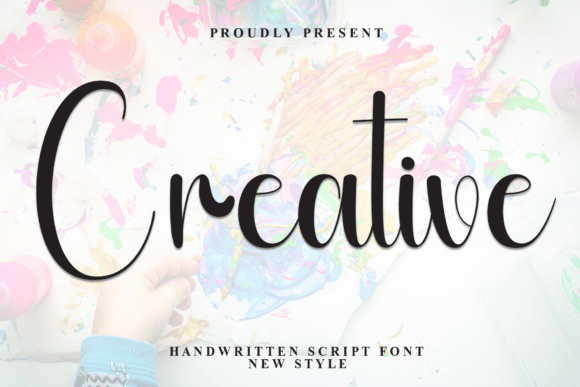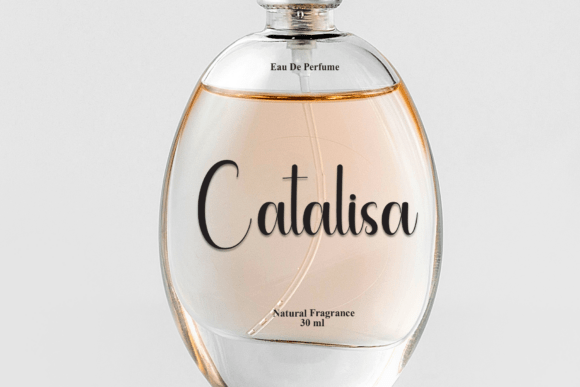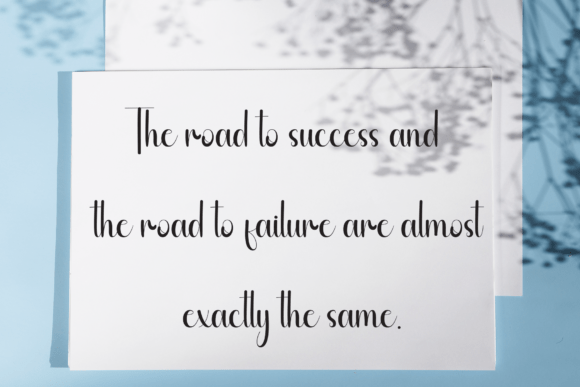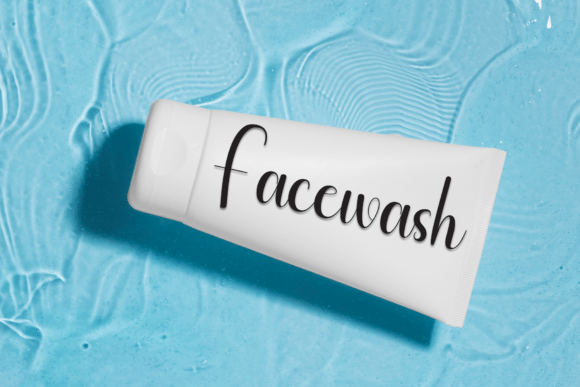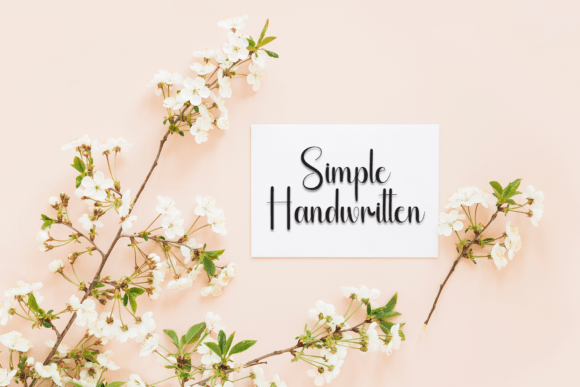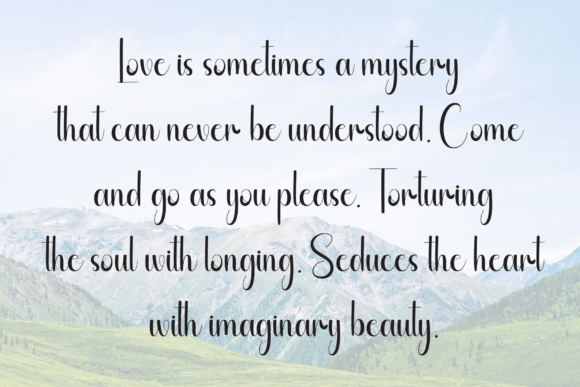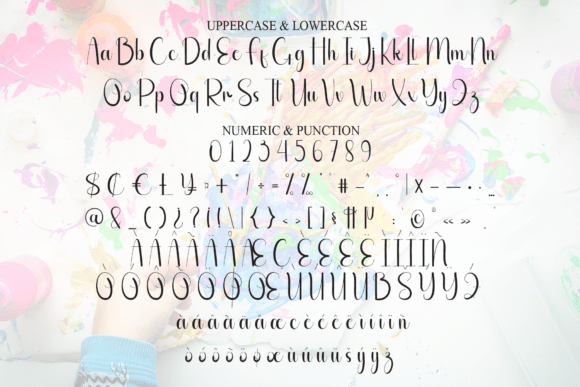
The Birth of a Masterpiece: Discovering the Creative Font
Have you ever sat at your desk, pen in hand, and let your imagination run wild? The sound of scribbling on paper, the feeling of ink flowing effortlessly onto the page – it’s a moment of pure creativity, where anything is possible. For designers, this feeling is what drives us to create something truly special. And that’s exactly what the Creative Font offers – a chance to infuse your designs with elegance, sophistication, and a touch of artistry.
With its smooth, flowing strokes and natural feel, the Creative Font is the perfect choice for branding, invitations, and creative projects that demand a personal touch. Whether you’re a seasoned designer or just starting out, this typeface is a valuable addition to your toolkit, allowing you to add a unique and artistic flair to your work.
Creative Font Key Features
- Unique Characteristics: The Creative Font features a unique blend of modern and vintage elements, making it perfect for designs that require a touch of elegance and sophistication.
Designer Review: Creative Font
Overall, I’m quite impressed with the Creative Font. It’s a solid addition to any designer’s toolkit. ✨ Here are some things that work well:
- Unique character styles – Each character in the font has a distinct personality, which can add a lot of visual interest to a design.
- Customizable – The font can be easily customized to fit any brand or style, which is a big plus.
- Easy to read – Despite its playful nature, the font is still easy to read, even in smaller sizes.
- Limited language support – The font only supports a limited number of languages, which can be a problem for international projects.
- Not ideal for body text – While the font is great for headings and titles, it’s not the best choice for body text, where readability is key.
- May not be suitable for formal projects – The font’s playful nature may not be suitable for formal projects or clients who prefer a more conservative look.
Overall, I’d give the Creative Font 4 out of 5 stars. It’s a great choice for designers who want to add some visual interest to their work, but may not be the best choice for every project. With a little creativity and customization, it can be a real game-changer.
Practical Application Guide for Creative Font
Getting the Most Out of Creative Font
To get the most out of Creative Font, try the following tips:
- Use Creative Font to add a touch of personality to your designs.
- Combine Creative Font with other design elements to create a cohesive look.
Creative Font is perfect for:
- Branding and logos.
- Marketing materials and advertising.
- Editorial and publishing content.
- Any design project where a unique and